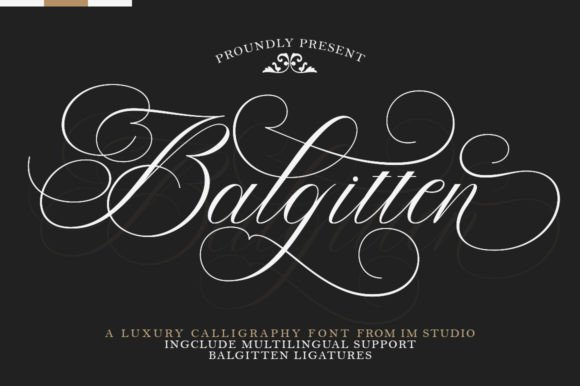
Discover the Elegance of Balgitten Font: Elevate Your Design Projects with Style
In the world of typography, few fonts manage to capture the essence of classic calligraphy while offering versatility and elegance. Balgitten Font is one such exceptional script font that has garnered attention for its charming and sophisticated appeal. This stunning font is not just a typeface; it’s a stylish homage to the art of traditional calligraphy, designed to elevate any design project to new heights. Whether you’re working on branding, titles, wedding designs, invitations, signs, logos, labels, or more, Balgitten Font is the perfect choice for designers seeking to infuse their creations with a touch of luxury and refinement.
Key Features of Balgitten Font
- Charming and Elegant Design: Balgitten Font boasts a beautifully crafted script design that exudes elegance and charm. Its classic calligraphy style makes it suitable for projects that require a sophisticated look.
- Versatility: This font is incredibly versatile, making it perfect for a wide range of design projects. From branding and titles to wedding designs, invitations, signs, logos, and labels, Balgitten can be used in various contexts to add a touch of elegance.
Ideal Applications for Balgitten Font
Balgitten Font’s versatility and elegant design make it suitable for a variety of design applications. Here are some of the ideal uses for this stunning script font:
- Branding: Use Balgitten to create luxurious brand identities that stand out. Its elegant design can add a touch of sophistication to logos, business cards, and letterheads.
- Wedding Designs: Create beautiful wedding invitations, save-the-date cards, and wedding stationery with Balgitten. Its classic calligraphy style is perfect for wedding designs that require a romantic and elegant look.
- Invitations: Whether it’s a formal event or a casual gathering, Balgitten can be used to design stunning invitations that set the tone for the occasion.
- Signs and Logos: Add a touch of elegance to signs, logos, and labels with Balgitten. Its sophisticated design makes it suitable for businesses and events that require a professional look.
Tips for Using Balgitten Font Effectively
To make the most of Balgitten Font, here are some typography tips to keep in mind:
- Pair with Complementary Fonts: Balgitten pairs well with clean sans-serif fonts. Use it as a headline font and pair it with a simple font for body text to create a balanced design.
- Adjust Font Sizes: Experiment with different font sizes to create visual hierarchy. Use larger font sizes for headings and smaller sizes for body text to make your design more readable.
- Play with Colors: Balgitten looks stunning in metallic colors, pastels, and rich jewel tones. Experiment with different colors to find the perfect combination that suits your design.
Benefits of Using Balgitten Font
Balgitten Font offers several benefits that make it a popular choice among designers:
- Unique Design: Balgitten’s elegant and charming design sets it apart from other script fonts. Its classic calligraphy style adds a touch of sophistication to any design project.
- Time-Saving: With PUA Unicode encoding, designers can access all additional characters without the need for special software, saving time and effort.
- Cross-Platform Compatibility: Balgitten is compatible with both Mac and Windows operating systems, making it easy to use across different platforms.
Balgitten Font is a stunning script font that offers elegance, charm, and versatility. Its classic calligraphy design makes it perfect for a wide range of design projects, from branding and titles to wedding designs and invitations. With its PUA Unicode encoding, cross-platform compatibility, and beautiful design, Balgitten is an excellent choice for designers seeking to elevate their creations to new heights. Whether you’re a professional designer or a DIY enthusiast, Balgitten Font is sure to become a valuable addition to your typography arsenal.